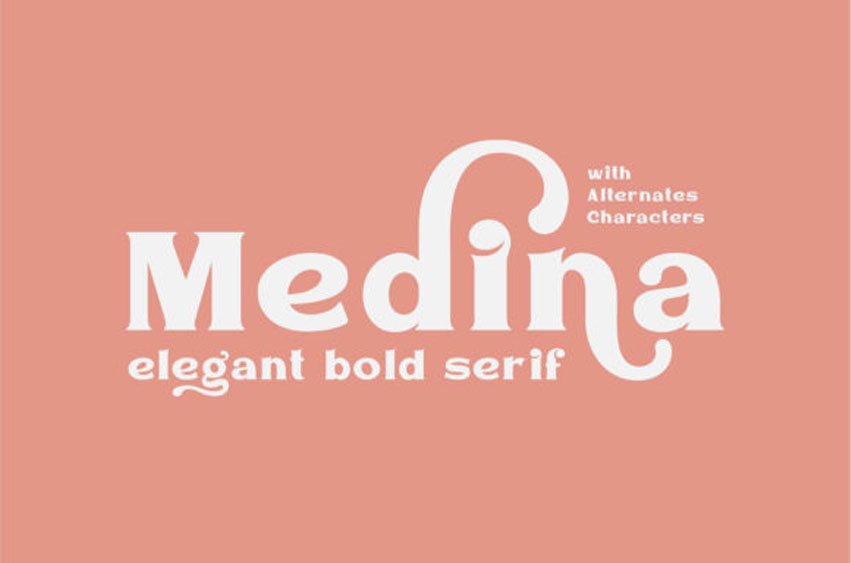
Medina Font is a chunky lettered serif font with elegant characters. Bold and unique, this font will become your favorite choice in no time.
Add it confidently to your designs and notice how they come alive!